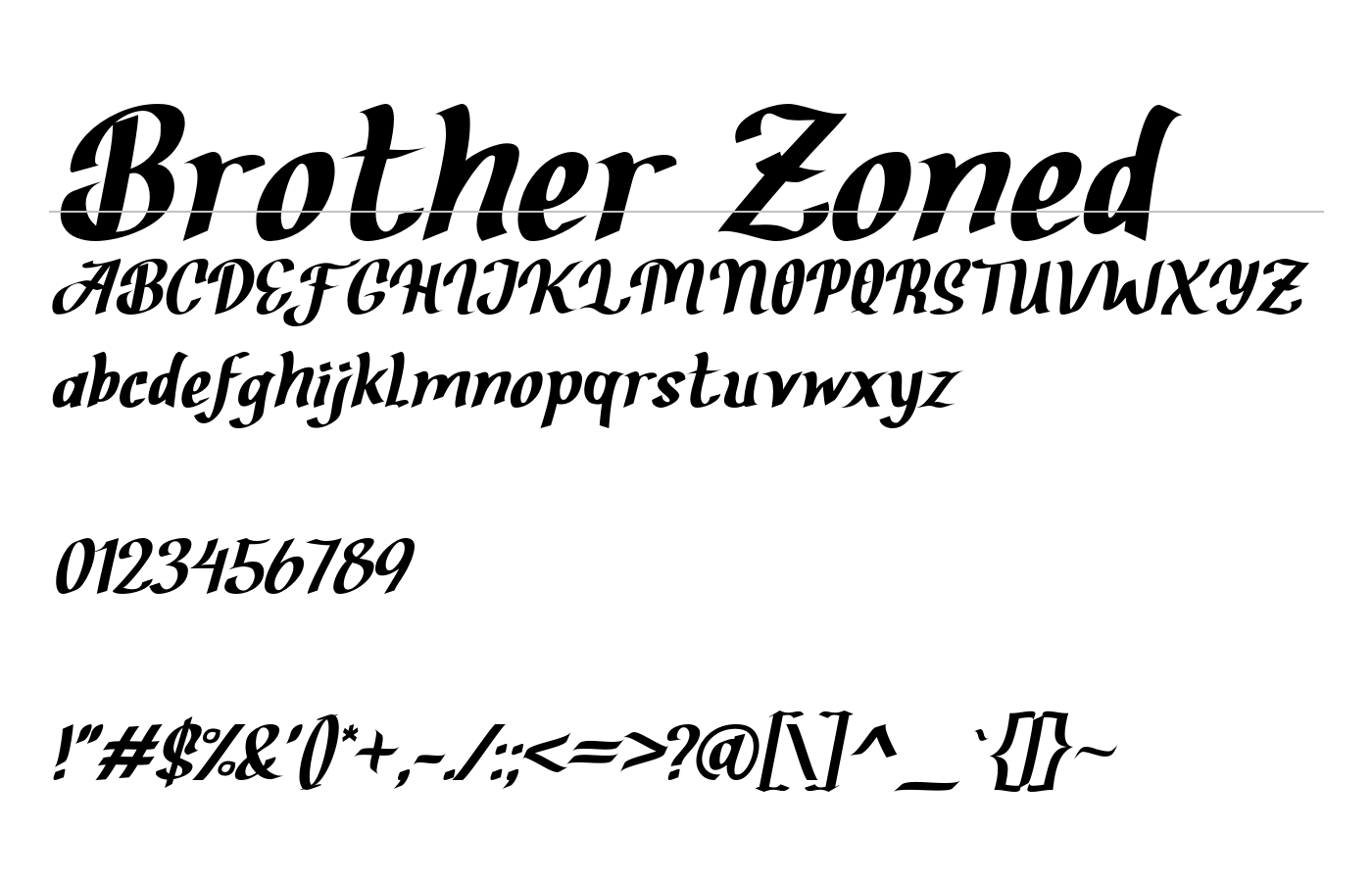
Brother Zoned is a bold, script-inspired serif font with a strong sense of motion and character, featuring high contrast strokes and sharp, slightly exaggerated terminals that convey vintage charm with a modern twist. Its dynamic, italicized style and distinctive letterforms make it perfect for eye-catching headlines, logos, and branding that seek to blend elegance with a spirited, retro personality. This font works especially well in fashion, packaging, and editorial design where a bold, expressive statement is needed.
Brother Zoned Font
About Brother Zoned Font
| Font family | Brother Zoned Font |
| Designer | Dreamink; Dani; Situjuh Nazara |